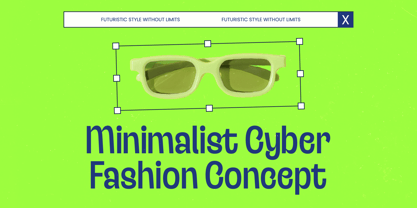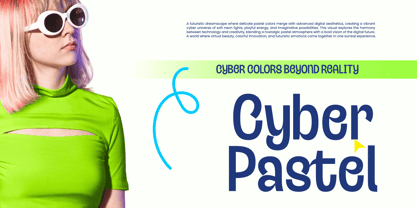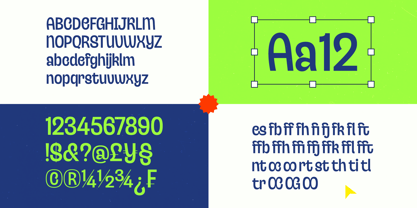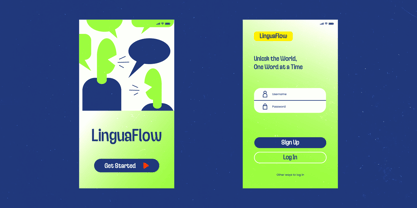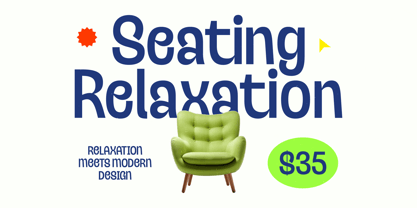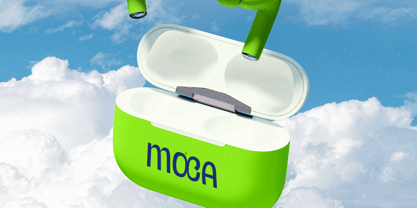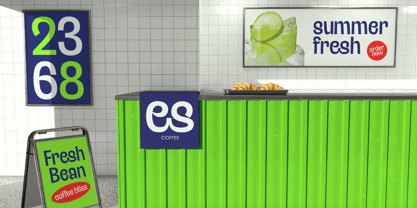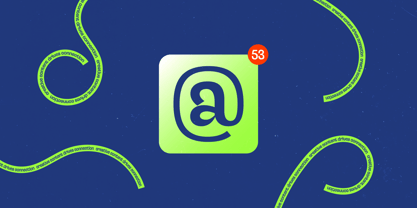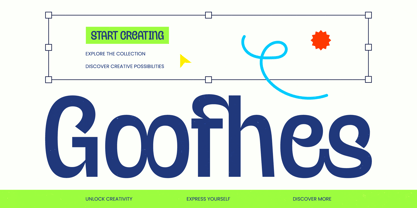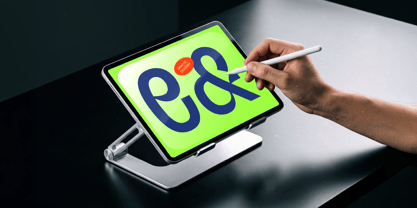
Goofhes
La familia tipográfica Goofhes fue diseñada por Heru Utama Putra y publicada por Timelesstype Studio. Goofhes contiene 2 estilos y opciones de paquete familiar. Más información sobre esta familia
Goofhes invites you into a world of unbridled creativity where every character dances with a playful, high-energy spirit. It’s more than just a typeface; it’s a vibrant visual statement designed to make your projects pop with personality and joy.
Born from a futuristic dreamscape where cyber colors meet nostalgic digital aesthetics, this font captures the essence of a soft-neon universe. Its fluid lines and quirky proportions draw inspiration from early digital art and the vibrant energy of imaginative possibilities.
Even as a sans-serif, it captures the elegance of a modern serif display while providing a bold branding impact. This luxury typography choice functions with the precision of a high-contrast serif but maintains the approachability of a contemporary editorial font that commands attention on every page.
As the modern serif trend evolves, designers are seeking more character-driven typography that breaks traditional rules. These editorial display fonts provide the perfect solution for creators who want to merge futuristic vibes with a classic structural foundation that stays ahead of the curve.